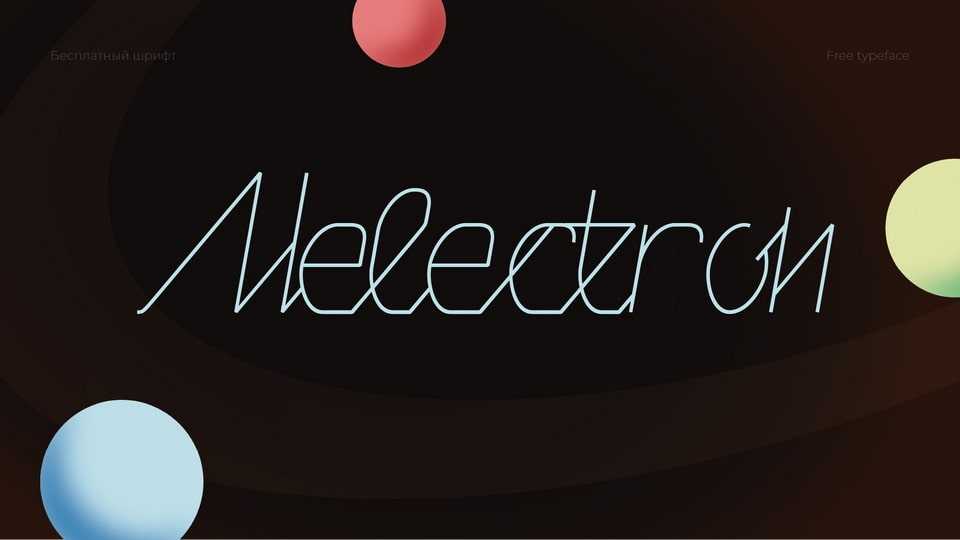
Download Melectron font, a decorative display typeface with automatic glyph connection, inspired by the old signage. Suitable for headlines that you want to write in cursive, but add the severity of the grotesque.
Designer: KFproduction